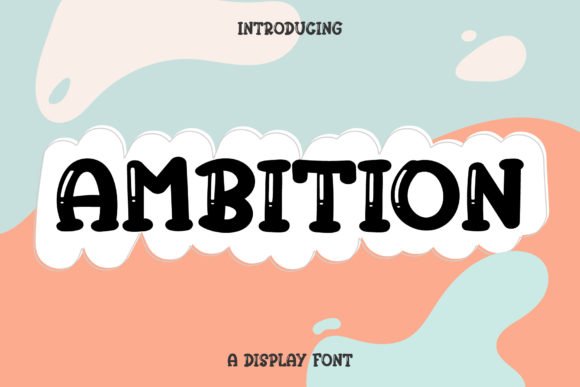
That’s where the Ambition Font comes in – a cool and friendly display font designed to elevate your creations and make them stand out from the crowd. Simple yet powerful, this font is the perfect companion for any designer looking to add an extra layer of visual impact to their work. With the Ambition Font, you’ll be able to create designs that instantly grab attention and leave a lasting impression.
- Unique Characteristics: Ambition Font features a unique blend of modern and classic design elements, with a bold and confident feel that makes it perfect for corporate and professional branding.
- Kerning and Ligatures: Ambition Font includes advanced kerning and ligature pairs, ensuring that text is displayed with precision and elegance, even in complex layouts and compositions.
Ambition Font Review
I’ve had the chance to play around with the Ambition Font, and I’m sharing my honest thoughts.
The Ambition Font has some great qualities that make it a solid choice for designers. Here are a few:
- It’s highly customizable, with a wide range of font sizes, styles, and weights to choose from.
- The font is incredibly legible, even at smaller sizes, making it perfect for body text.
- The design team has clearly put thought into the font’s aesthetics, with a unique yet timeless feel.
While the Ambition Font has its strengths, there are a few areas where it falls short:
- The font’s condensed styles can feel a bit cramped, particularly at larger sizes.
- Some characters, such as the ampersand, feel a bit awkward in certain contexts.
Overall, the Ambition Font is a solid choice for designers who want a versatile, legible font that’s easy to customize. While it’s not perfect, its strengths far outweigh its limitations, making it a great addition to any design project.
The Ambition Font is ideal for:
1. Creating motivational and inspiring quotes.
2. Designing business and marketing materials.
3. Adding a touch of elegance to your presentations and documents.